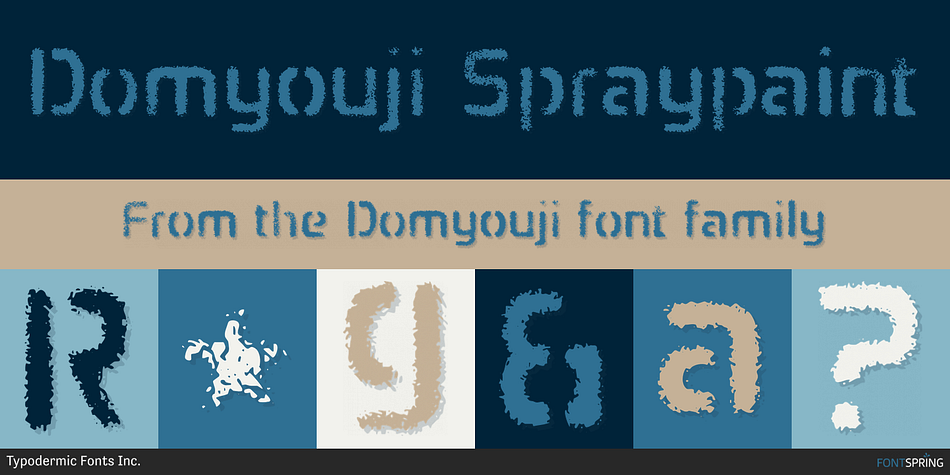
Domyouji Spraypaint
Domyouji is a multiple classification font family. This typeface has four styles and was published by Typodermic Fonts Inc.
Introducing Domyouji, the typeface that seamlessly blends the industrial style of the 1970s with today’s sleek design ethos, all with a hint of Handel Gothic. Domyouji was purposefully created as the ideal high-tech body text companion for Korataki, combining soft curves and strong corners to give your message an undeniable sense of precision and technological accuracy.
Each of Domyouji’s four distinct styles, including Regular, Italic, Dirty, and Spraypaint, offer a unique look and feel to suit your specific design needs. Whether you’re looking for a more refined and polished appearance or a bold and edgy statement, Domyouji has got you covered.
With its dynamic and futuristic aesthetic, Domyouji is the perfect typeface to elevate any technological or industrial themed project, from sleek product packaging to cutting-edge advertising campaigns. So, if you’re looking to convey a message of innovation and sophistication, choose Domyouji, and let its modern yet timeless style speak for itself.